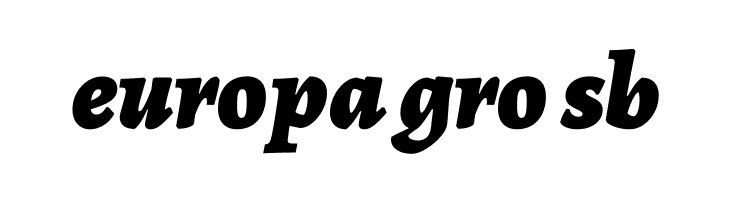
• Alegreya
A dynamic serif typeface with a blend of traditional elegance and modern style.
• Alegreya Black
A bold serif font with strong contrast and classic appeal.
• Alegreya Black Italic
A bold, italic serif font with strong strokes and a dynamic presence.
• Alegreya Bold
A bold, classic serif font with strong serifs and elegant curves.
• Alegreya Bold Italic
A bold, italic serif font with dynamic and elegant letterforms.
• Alegreya ExtraBold
A bold serif typeface with dynamic strokes and elegant curvature.
• Alegreya ExtraBold Italic
A bold, italic serif font with dynamic movement and classic elegance.
• Alegreya Italic
An elegant, italic serif font with moderate contrast and classic appeal.
• Alegreya Medium
A medium-weight serif font with a balanced, modern classic style.